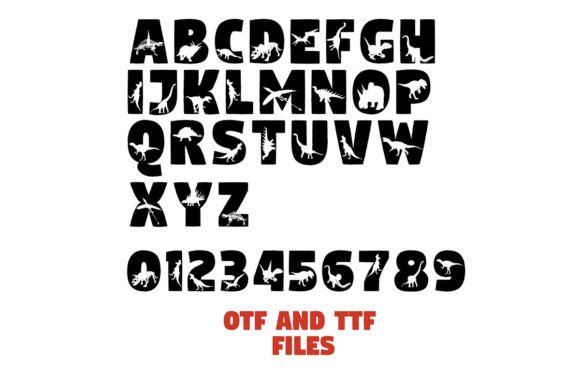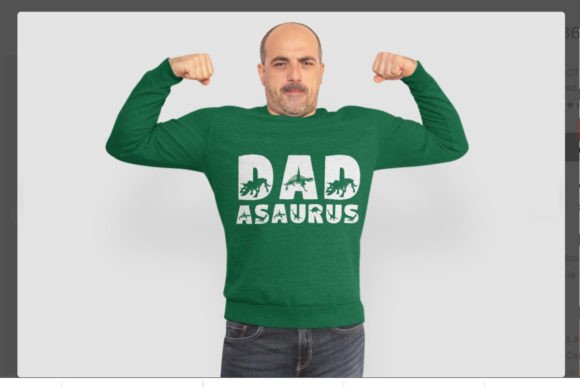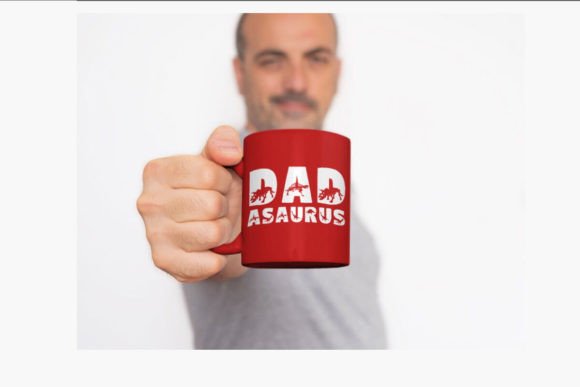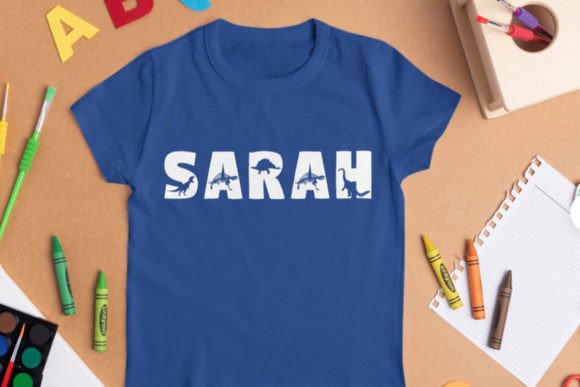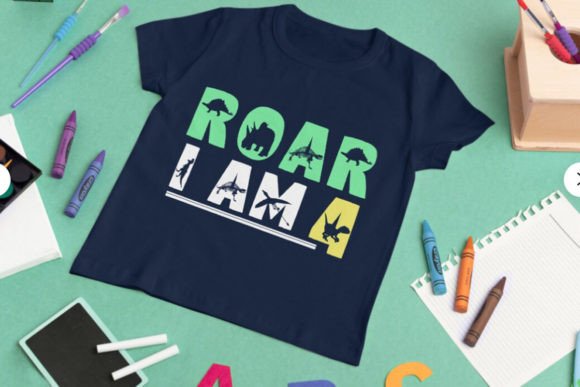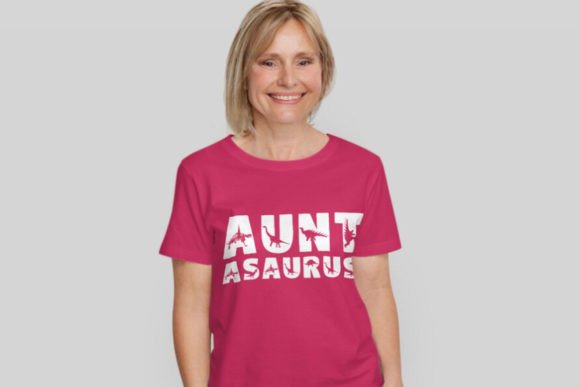
Roar into Creativity with Dino Font: Unleash the Prehistoric Era in Your Designs
Are you ready to take a step back in time and unleash your creativity with a font that embodies the raw power and majesty of the prehistoric era? Look no further than the Dino Font, a captivating alphabet and numbers font that will transport your audience to a world of adventure and imagination. Whether you’re working on dinosaur-themed projects, children’s book illustrations, educational materials, or playful designs, this font is the perfect tool to breathe life into your creations.
The Mighty Dino Font: A Perfect Blend of Fun and Creativity
The Dino Font is more than just a font – it’s an experience. With its bold and playful design, this font captures the essence of the prehistoric era, taking your audience on a journey through time. The font features a unique and distinctive style, with each letter and number carefully crafted to resemble the mighty roar of a dinosaur. The result is a font that’s both fun and creative, perfect for designers and crafters looking to add a touch of whimsy to their projects.
Endless Possibilities with Dino Font
The versatility of the Dino Font is one of its most appealing features. Whether you’re working on a children’s book, a dinosaur-themed party invitation, or an educational material, this font is the perfect choice. Here are just a few ideas to get you started:
- Dinosaur-themed projects: Create a roaring dinosaur logo, a prehistoric-themed poster, or a dinosaur-themed party invitation that will leave your audience in awe.
- Children’s book illustrations: Bring your story to life with a font that’s both fun and engaging. The Dino Font is perfect for children’s book illustrations, adding a touch of whimsy and adventure to your story.
- Educational materials: Make learning fun with a font that’s both educational and engaging. The Dino Font is perfect for educational materials, such as worksheets, activity sheets, and educational posters.
- Playful designs: Add a touch of playfulness to your designs with a font that’s both fun and creative. The Dino Font is perfect for playful designs, such as social media graphics, blog posts, and website headers.
Why Choose the Dino Font?
So why choose the Dino Font over other fonts? Here are just a few reasons:
- Unique and distinctive style: The Dino Font features a unique and distinctive style that’s sure to grab attention.
- Perfect for dinosaur-themed projects: If you’re working on a dinosaur-themed project, this font is a must-have.
- Fun and creative: The Dino Font is perfect for designers and crafters looking to add a touch of whimsy to their projects.
In conclusion, the Dino Font is a captivating alphabet and numbers font that’s perfect for designers and crafters looking to add a touch of whimsy to their projects. With its bold and playful design, this font is sure to transport your audience to a world of adventure and imagination. Whether you’re working on dinosaur-themed projects, children’s book illustrations, educational materials, or playful designs, the Dino Font is the perfect tool to breathe life into your creations. So why wait? Roar into creativity with the Dino Font today!
Get ready to unleash your creativity and take your designs to the next level with the Dino Font!